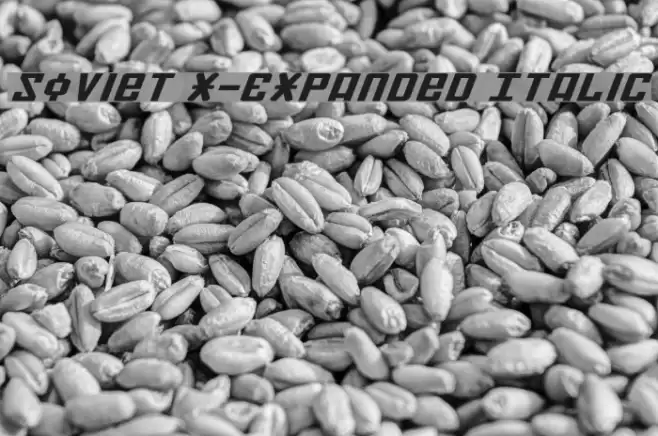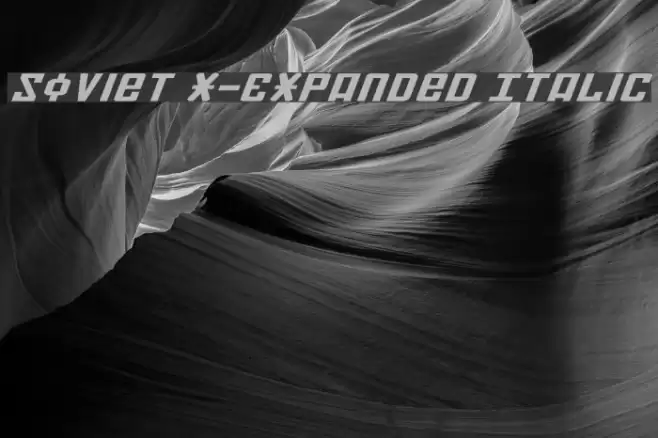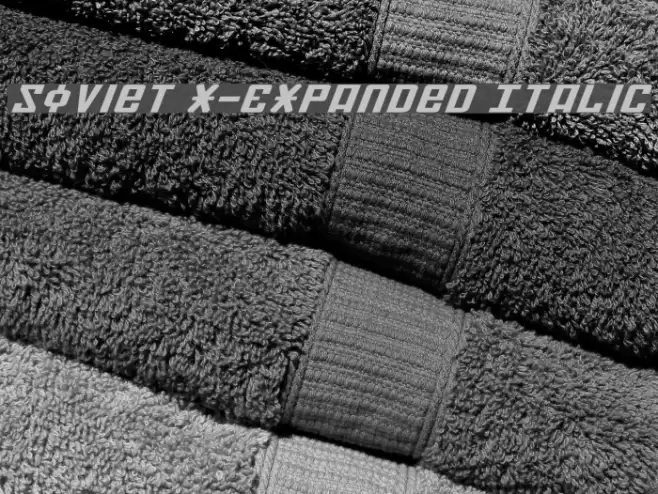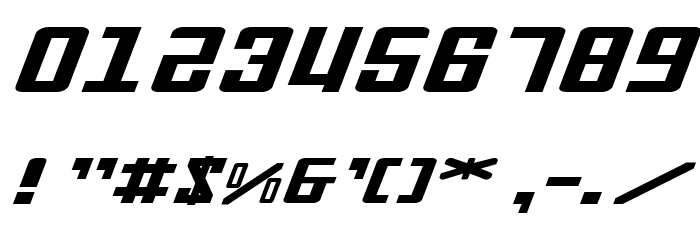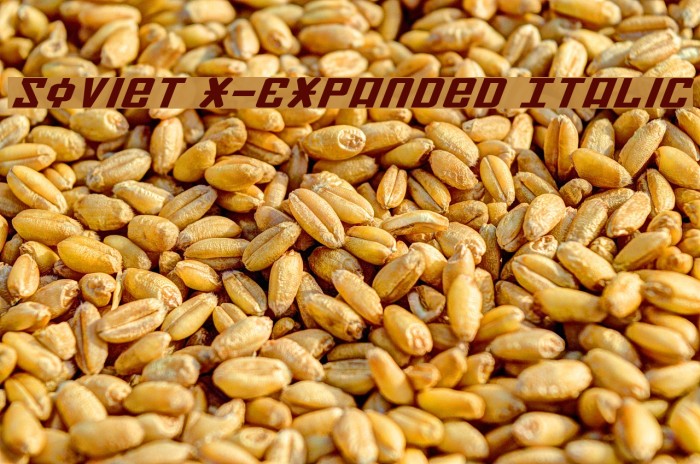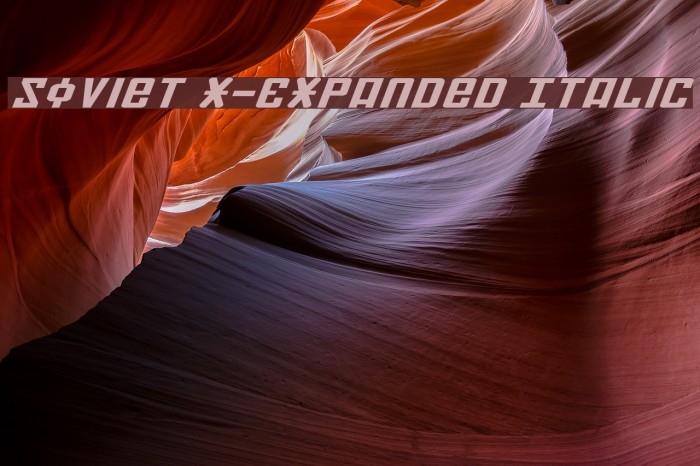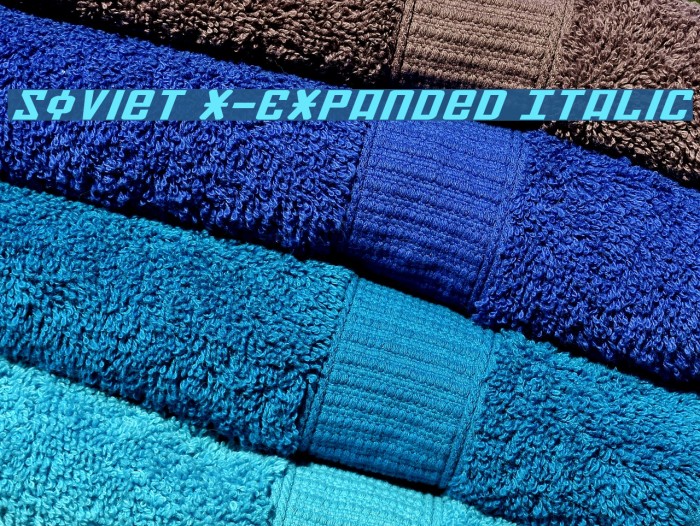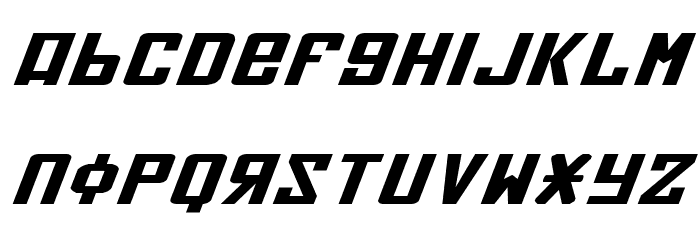
Soviet X-Expanded Italic Font
Soviet X-Expanded Italic Description
This font features a bold, italicized style with a distinctly expanded width, giving it a strong and assertive presence. The characters are angular and geometric, with sharp edges and a futuristic aesthetic. The uppercase and lowercase letters maintain a consistent design, emphasizing uniformity and cohesion. The numerals and special characters follow the same stylistic approach, ensuring a comprehensive and versatile typeface. The italic slant adds a dynamic and forward-moving feel, making it suitable for projects that require a modern and impactful look.
A bold, expanded, and italicized font with a geometric and futuristic style from Uncategorized fonts.
- Proposed Projects: Ideal for branding, posters, and headlines that require a modern and assertive appearance.